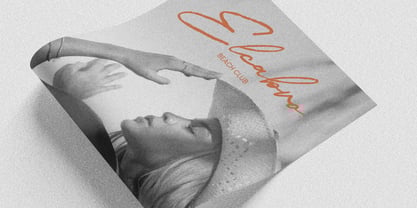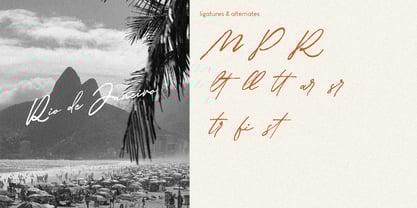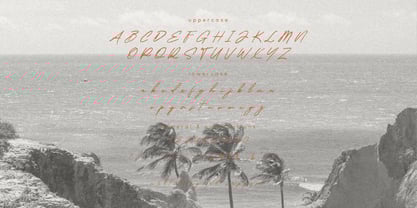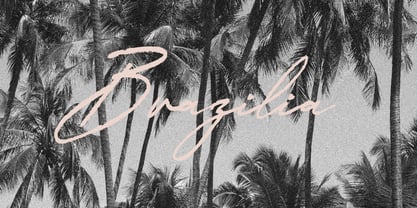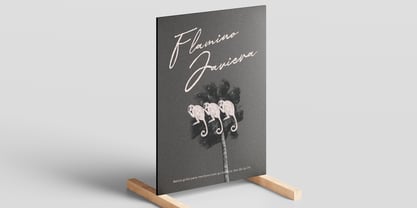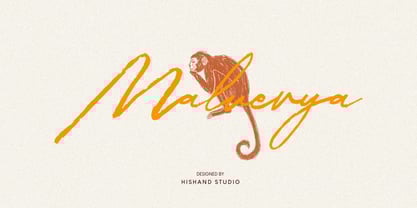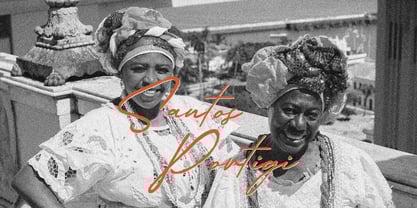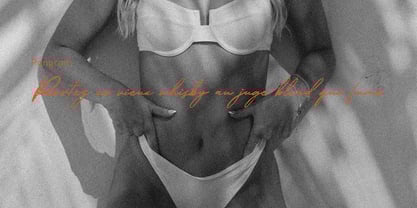
Malverya
by Hishand Studio
The Malverya Font Family was designed by Putu Dody Permana and published by Hishand Studio. Malverya contains 1 styles.
Crafted with a delicate touch, the Malverya script font is a beautiful blend of elegance and modern flair. Its aesthetic is defined by a fluid, handwritten style that mimics the effortless strokes of a brush, making each character feel unique and artistic. The font's signature aesthetic is characterized by its graceful, connecting letters and a delightful irregularity that adds to its authentic, organic feel.
Malverya is perfect for projects that demand a sense of handcrafted authenticity and sophistication. It lends itself beautifully to branding, logos, wedding invitations, and greeting cards, where a touch of warmth and personality is desired. The slight variations in thickness and the subtle imperfections of the brush strokes give it a genuine, human quality, making your designs feel more approachable and sincere. Whether you're aiming for a luxurious, high-end feel or a cozy, rustic charm, Malverya provides the perfect typographic solution. Its versatility and timeless beauty ensure your message is delivered with style and grace. Complete with
• uppercase
• lowercase
• ligatures
• alternates
• multilingual support